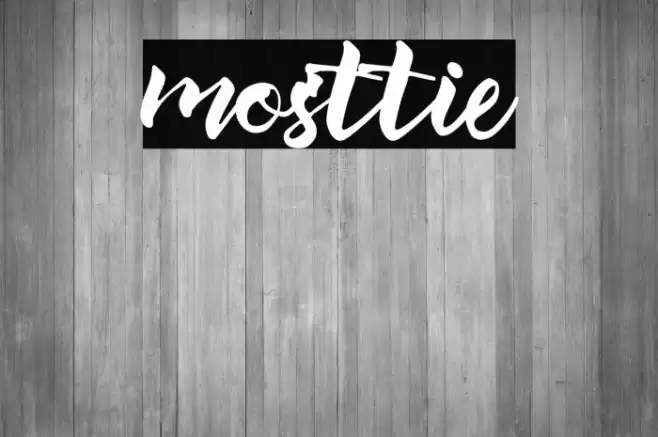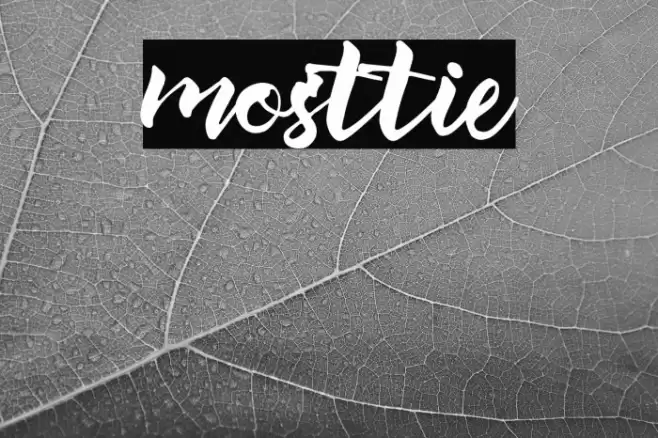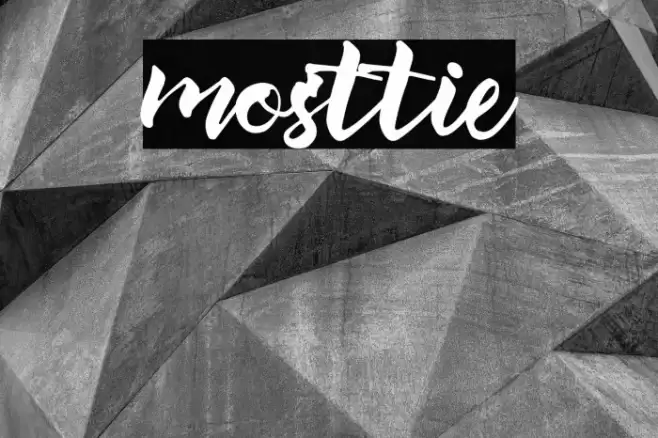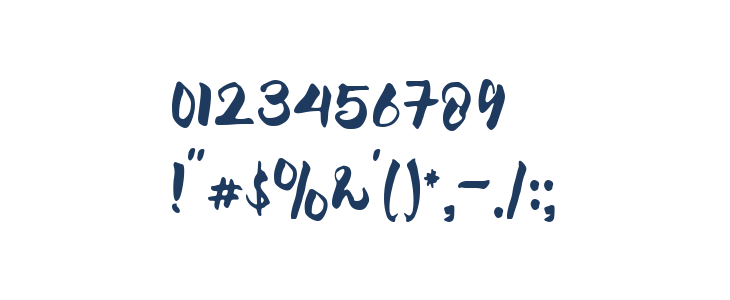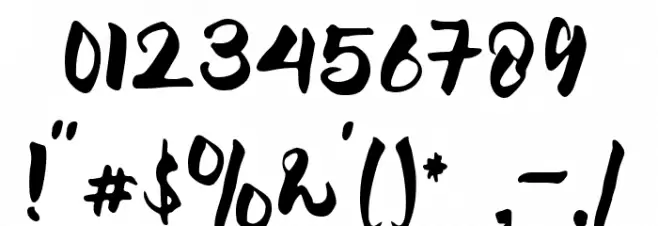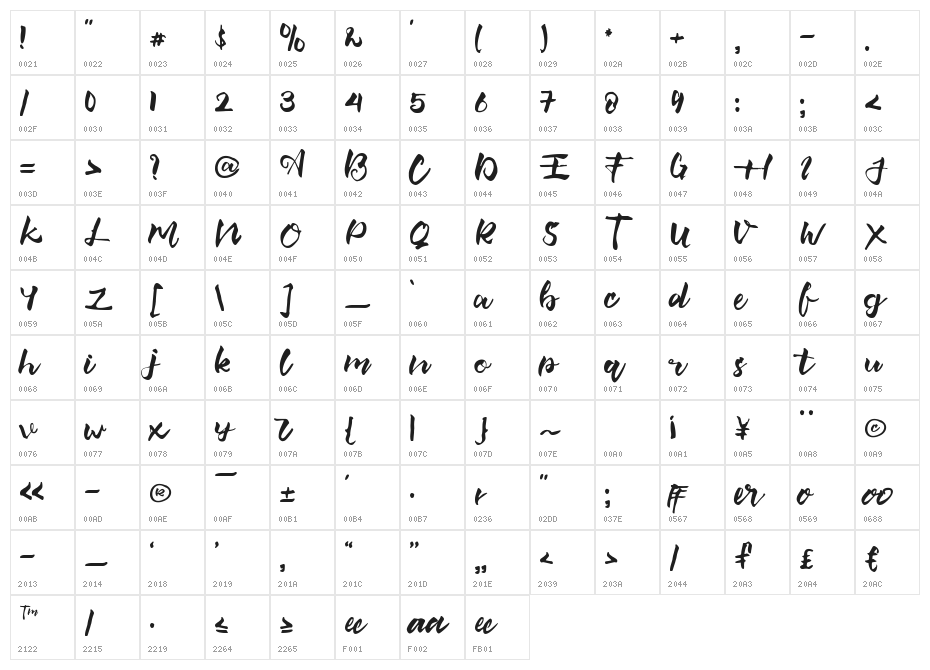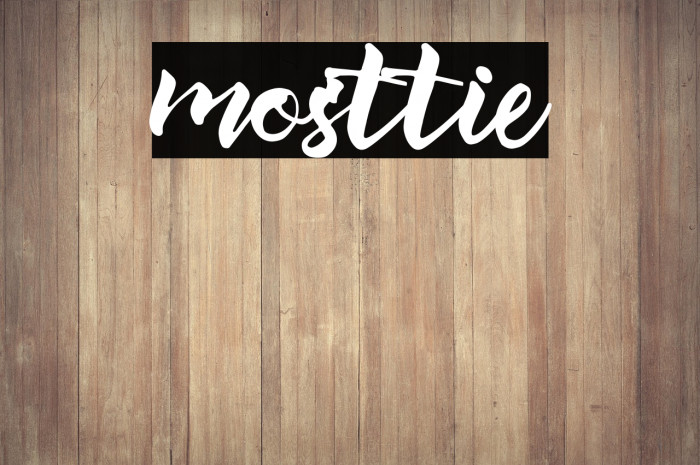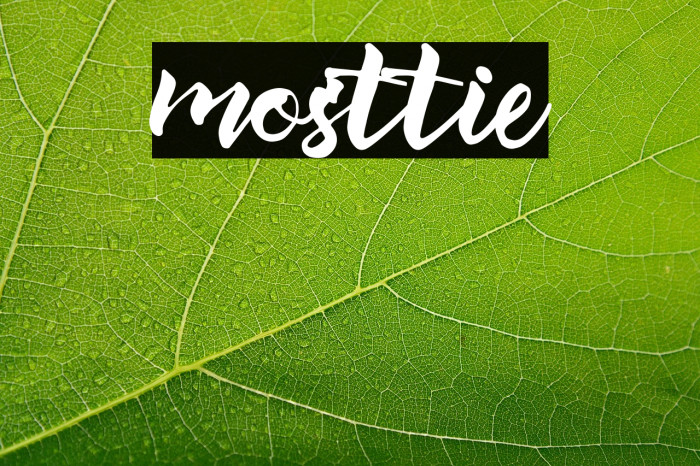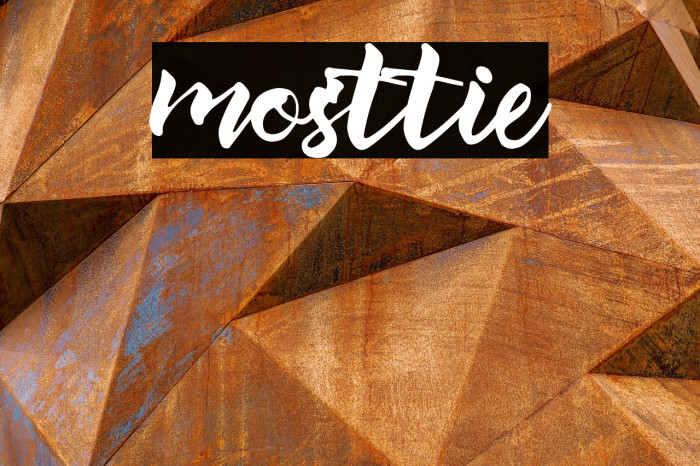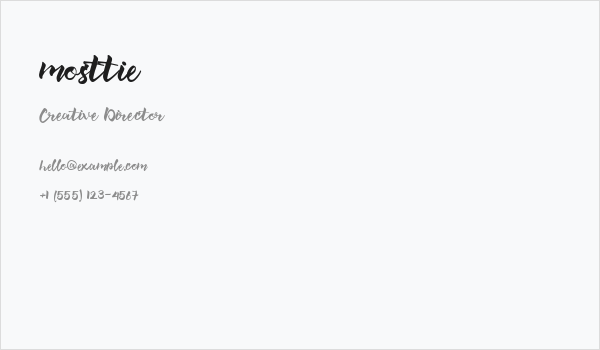
mosttie Font
mosttie Description
This font features a bold, expressive handwritten style with a playful and artistic flair. The characters are fluid and dynamic, showcasing a natural flow that mimics the strokes of a brush pen. The uppercase letters are slightly more structured, while the lowercase letters exhibit a more casual and freeform appearance. Numbers and special characters maintain the same lively and energetic style, ensuring consistency across all elements. The overall look is modern yet retains a touch of vintage charm, making it versatile for various creative applications.
A bold, expressive handwritten font with a playful and artistic flair from Uncategorized fonts.